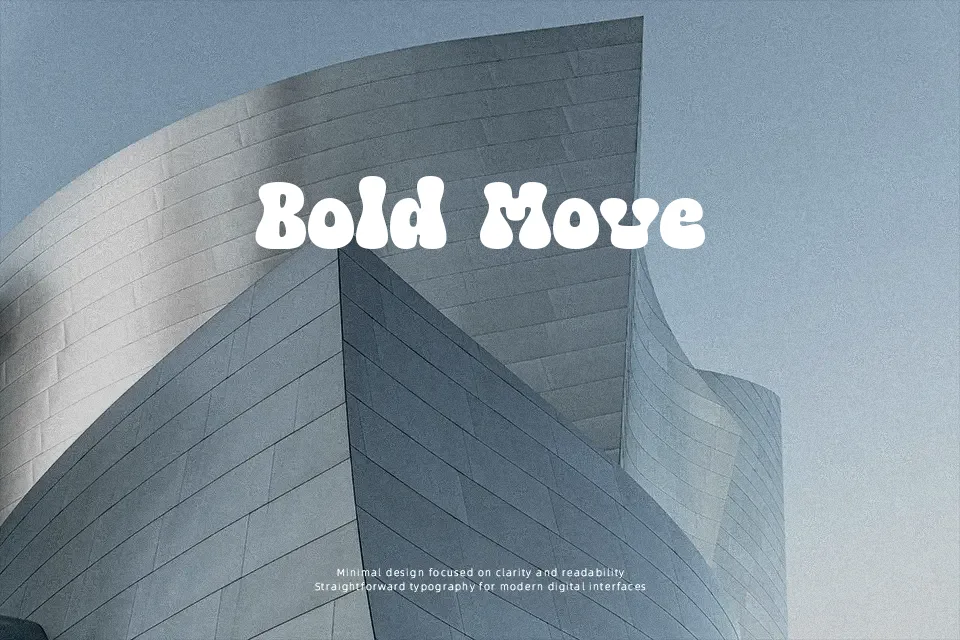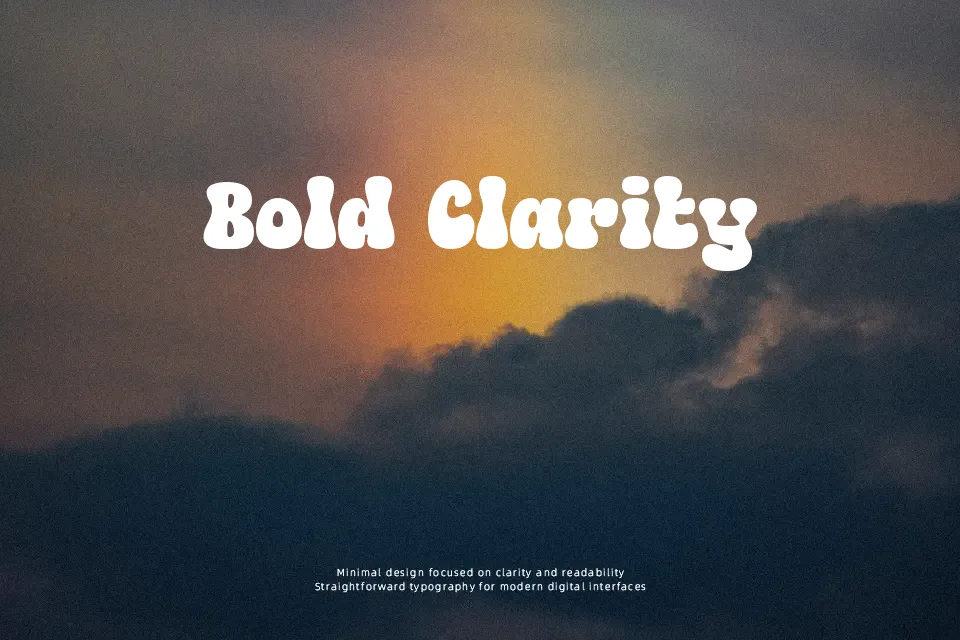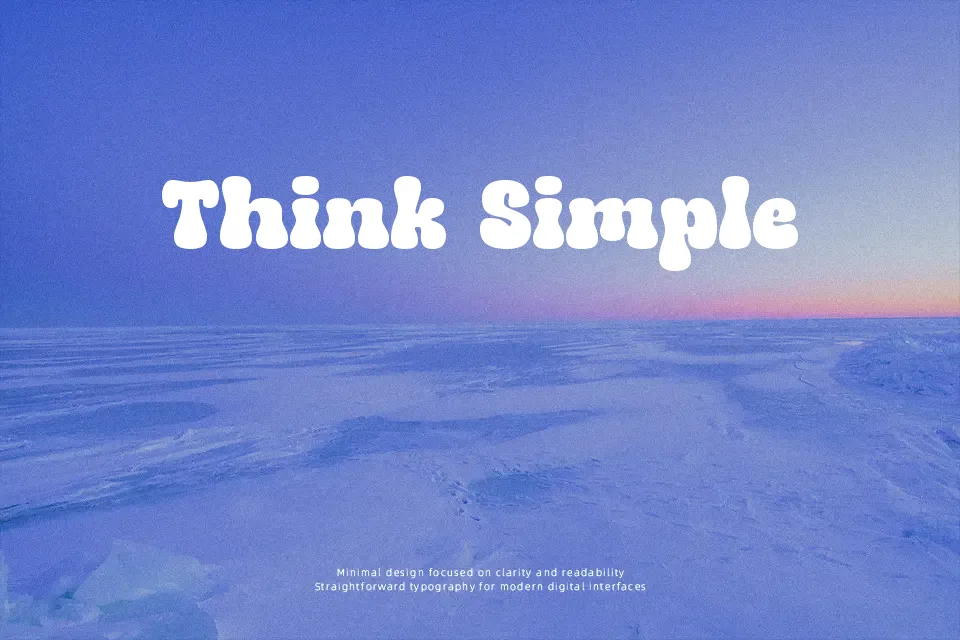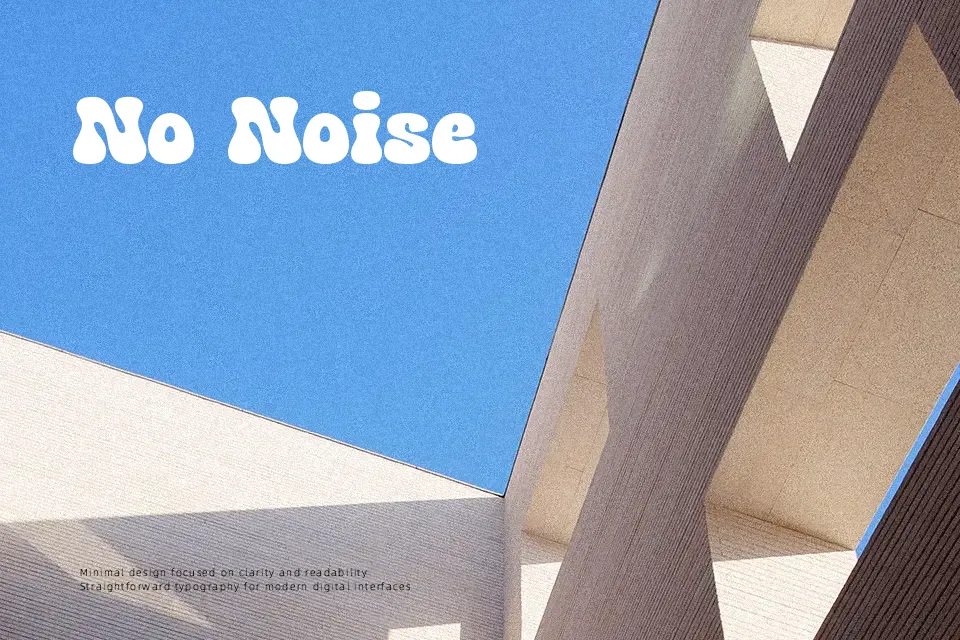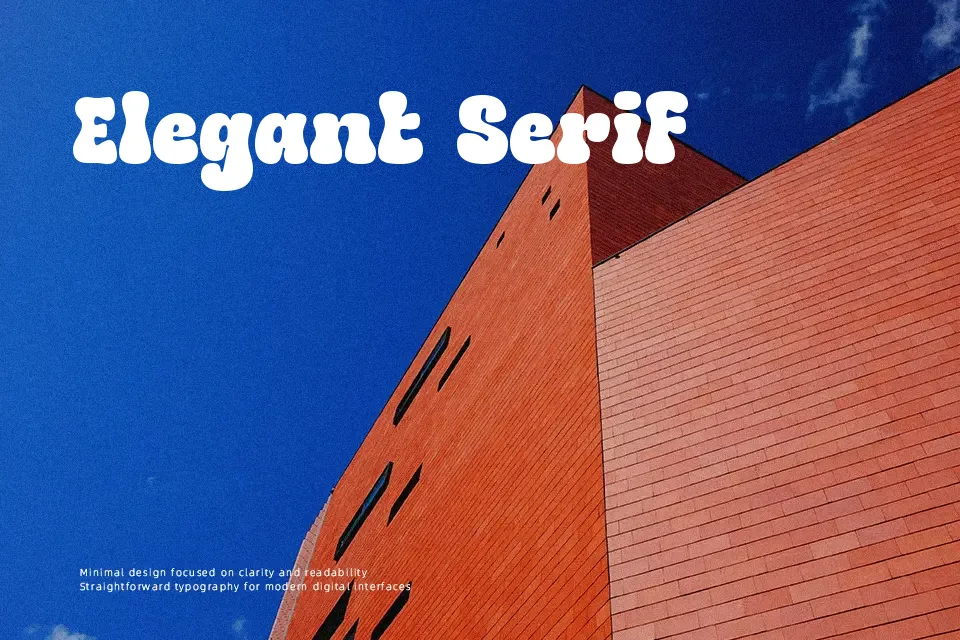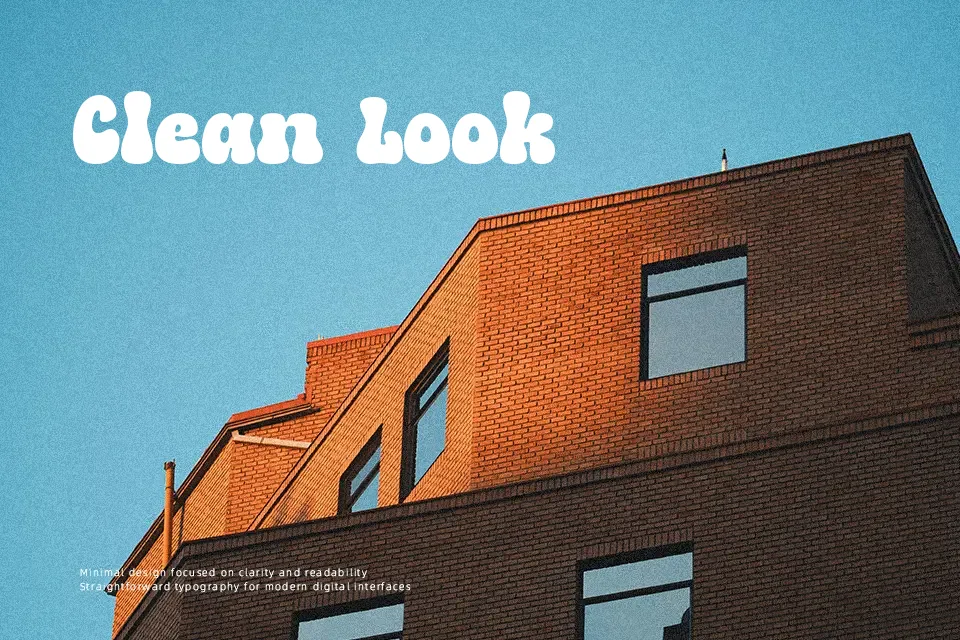
Sundrops Display Font
Sundrops Display Font presents an ultra-bold silhouette characterized by plump, rounded terminals, minimal negative counter spaces, and smooth continuous curvature across every glyph. The letterforms share wide, uniform proportions and tight character tracking, giving short display lines a unified, rhythmic presence. While stroke consistency remains sturdy across uppercase and lowercase sets, the reduced interior counter areas noticeably hinder legibility at compact body text sizes. In practice, the typeface performs best in large-scale applications such as music festival flyers, merchandise graphics, and stylized packaging headers. Dense editorial layouts and digital user interfaces will find the heavy mass overwhelming.
Best For: vintage product packaging, music festival posters, retro apparel graphics, cafe menu headlines
Not Ideal For: continuous paragraph text, mobile app user interfaces, small ingredient lists, corporate annual reports
Perfect for branding, headline, and packaging, with a bold and decorative style.